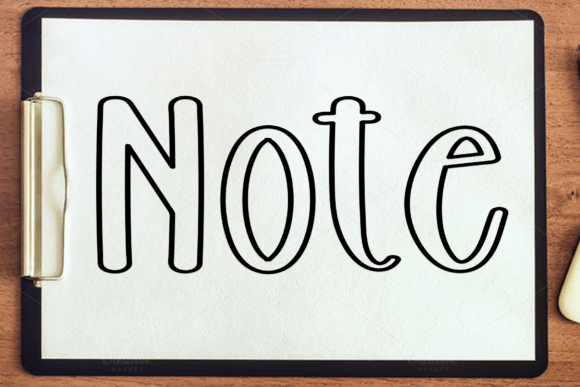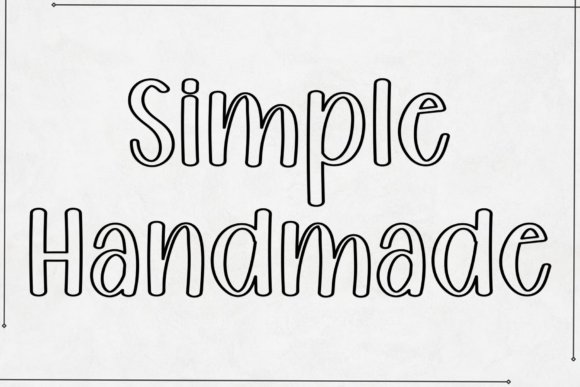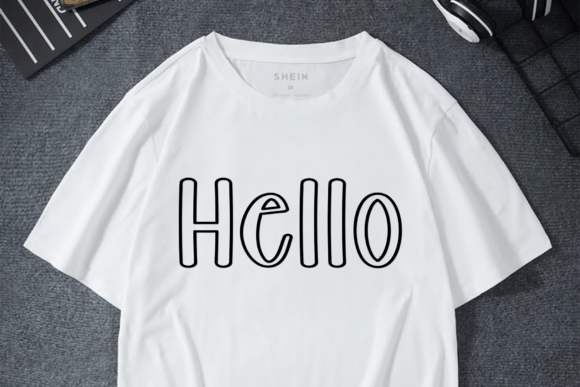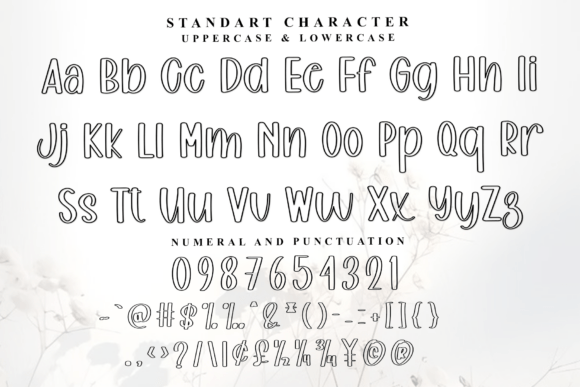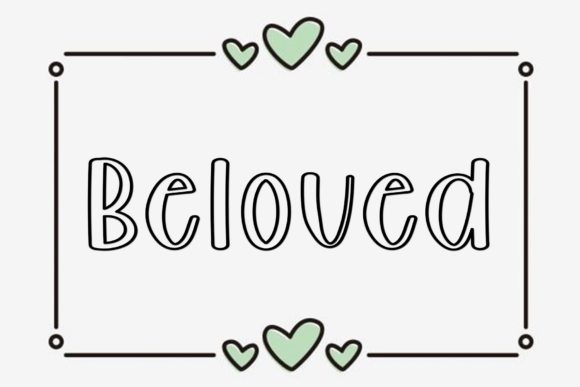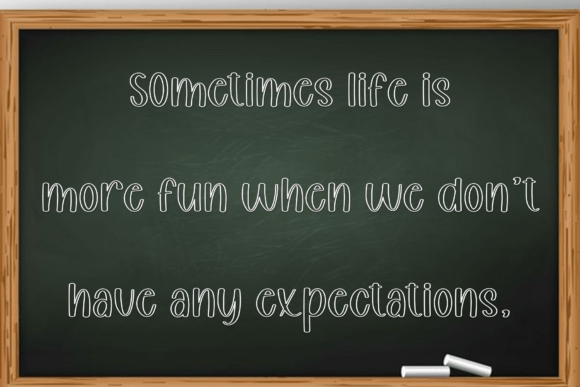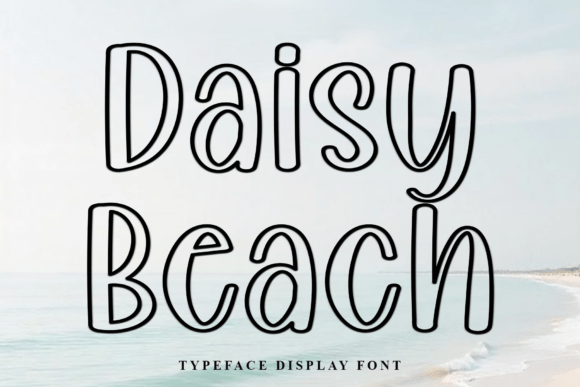
Daisy Beach Font: The Perfect Addition to Your Summer Projects
Are you looking for a font that captures the essence of summer and adds a touch of playfulness to your designs? Look no further than the Daisy Beach Font. This beachy, casual display font is perfect for summer-themed projects, children’s apparel, posters, or vacation branding. Its outlined style radiates sunshine and fun, making it an excellent choice for designers and crafters who want to evoke a carefree vibe.
What is Daisy Beach Font?
Daisy Beach Font is a unique and eye-catching display font that features an outlined style, giving it a light and airy feel. The font is designed to resemble handwritten letters, with a carefree and playful touch that’s perfect for summer-themed designs. Its casual and beachy vibe makes it an excellent choice for projects that require a fun and relaxed atmosphere.
Key Features of Daisy Beach Font
• Outlined style: The font features an outlined style that gives it a light and airy feel, perfect for adding a touch of whimsy to your designs.
• Beachy and casual: The font has a beachy and casual vibe that’s perfect for summer-themed projects, children’s apparel, and vacation branding.
• Display font: Daisy Beach Font is a display font, making it perfect for headlines, titles, and other prominent text elements.
• Handwritten style: The font features a handwritten style that adds a personal touch to your designs.
Uses for Daisy Beach Font
Daisy Beach Font is a versatile font that can be used for a variety of projects, including:
• Summer-themed projects: The font is perfect for summer-themed projects, such as posters, flyers, and social media graphics.
• Children’s apparel: The font’s playful and carefree vibe makes it an excellent choice for children’s apparel, such as t-shirts, onesies, and hats.
• Posters and flyers: The font is perfect for creating eye-catching posters and flyers for summer events, sales, and promotions.
• Vacation branding: The font’s beachy and casual vibe makes it an excellent choice for vacation branding, such as logos, brochures, and website headers.
Why Choose Daisy Beach Font?
There are many reasons why you should choose Daisy Beach Font for your next project. Here are a few:
• Unique and eye-catching: The font’s outlined style and handwritten touch make it a unique and eye-catching addition to any design.
• Easy to read: Despite its playful and casual vibe, the font is easy to read and understand, making it perfect for use in a variety of contexts.
• Versatile: The font can be used for a wide range of projects, from summer-themed designs to children’s apparel and vacation branding.
• Fun and carefree: The font’s carefree and playful vibe is sure to add a touch of fun and whimsy to any design.
Tips for Using Daisy Beach Font
Here are a few tips for using Daisy Beach Font in your designs:
• Use it as a display font: The font is perfect for use as a display font, so use it for headlines, titles, and other prominent text elements.
• Pair it with other fonts: The font pairs well with other fonts, so don’t be afraid to experiment with different combinations.
• Use it in bright colors: The font’s outlined style and playful vibe make it perfect for use in bright and bold colors.
• Experiment with different sizes: The font looks great in a variety of sizes, so experiment with different sizes to find the one that works best for your design.
Daisy Beach Font is a unique and eye-catching display font that’s perfect for summer-themed projects, children’s apparel, posters, and vacation branding. Its outlined style and handwritten touch make it a fun and carefree addition to any design. With its versatility, ease of use, and playful vibe, Daisy Beach Font is sure to become a favorite among designers and crafters. So why wait? Download Daisy Beach Font today and add a touch of sunshine and fun to your designs!